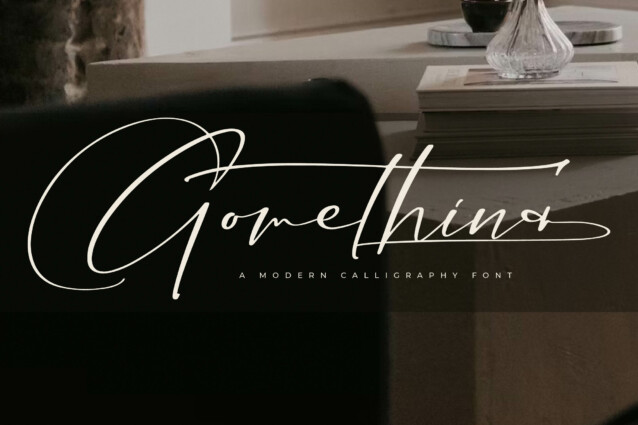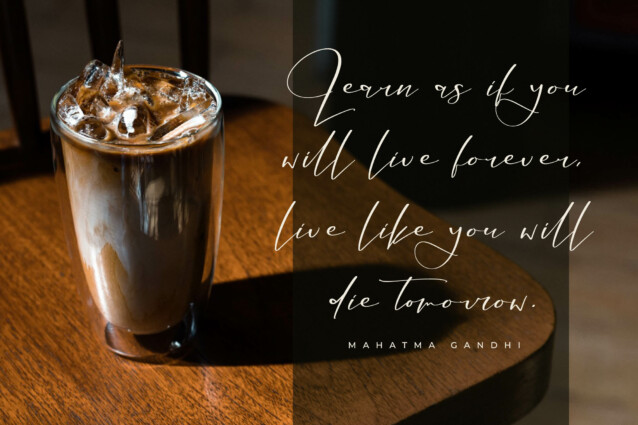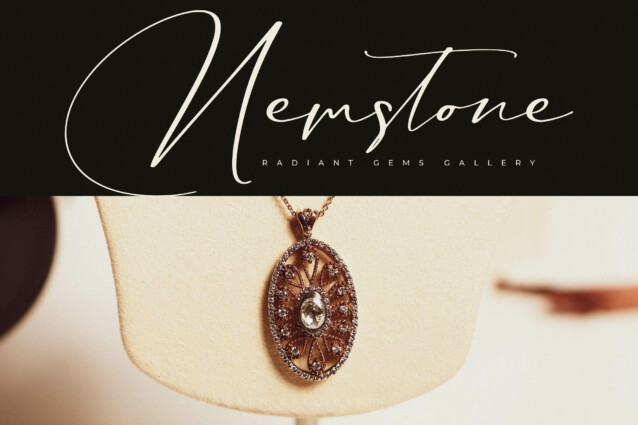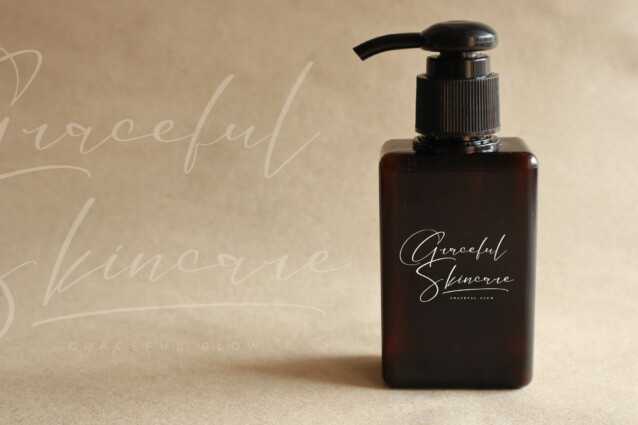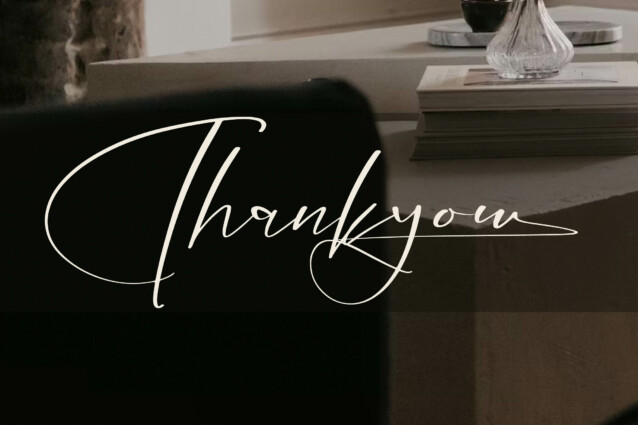
Gomethina Font
Gomethina Font is a Luxury Script font, suitable for any projects such as: logos, branding projects, homeware designs, product packaging, mugs, quotes, posters, shopping bags, t-shirts, book covers, name card, invitation cards, greeting cards, label, photography, watermark, special events, and all your other luxury and beautiful projects that need a Luxury Script taste.